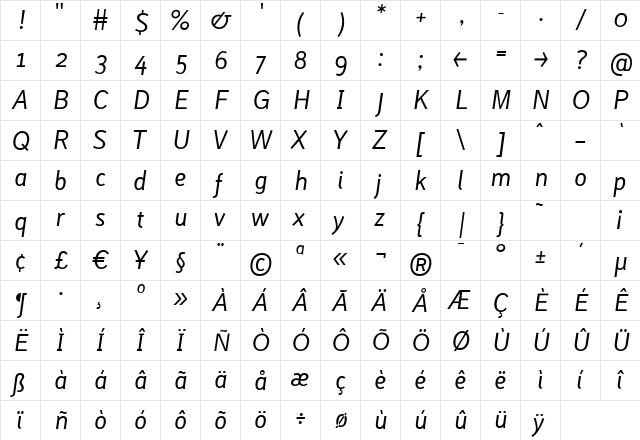
Lacuna Italic Regular
Design Context for Lacuna Italic Typeface
Lacuna Italic takes a measured approach to typography — its balanced proportions and neutral character make it a reliable workhorse for both digital and print work. Its italic angle brings a sense of urgency and motion to the letterforms.
Pro Tip: Try Lacuna Italic for annotation and caption copy alongside an upright companion — the contrast in angle creates a dynamic but ordered typographic system.